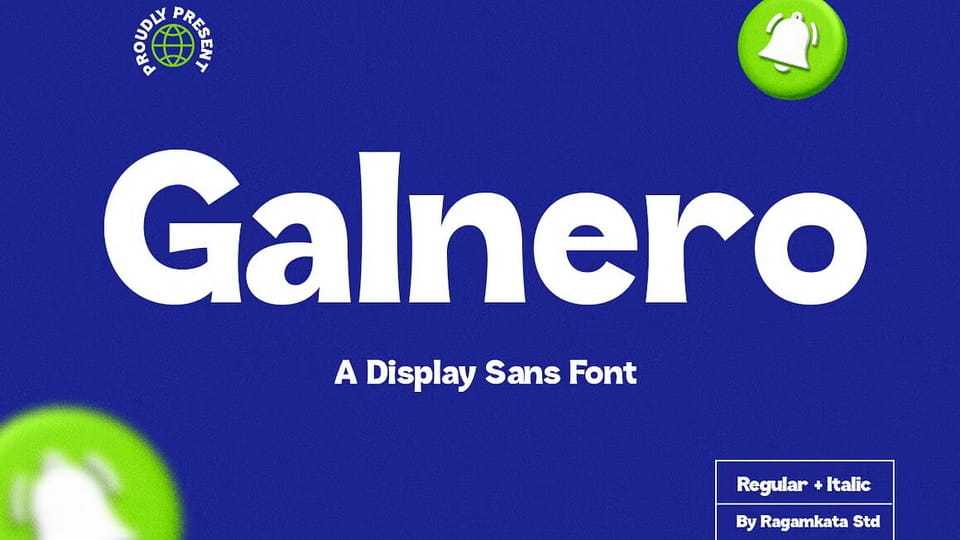
Download Galnero font, a bold and dynamic display sans typeface. With its thick, friendly letterforms and clean modern aesthetic, Galnero is designed to instantly grab attention.